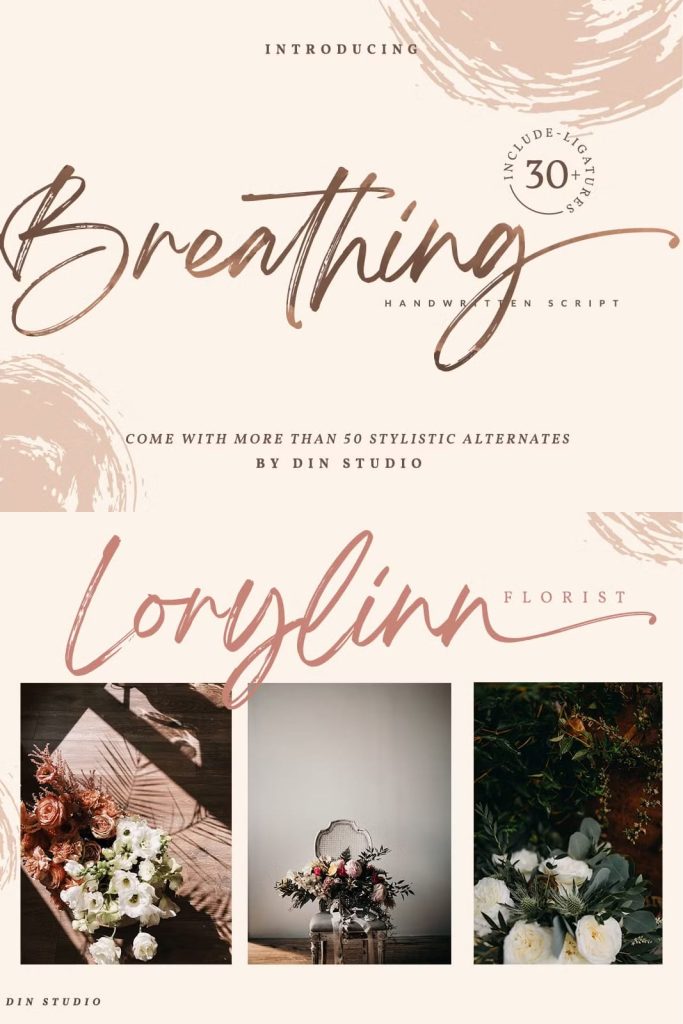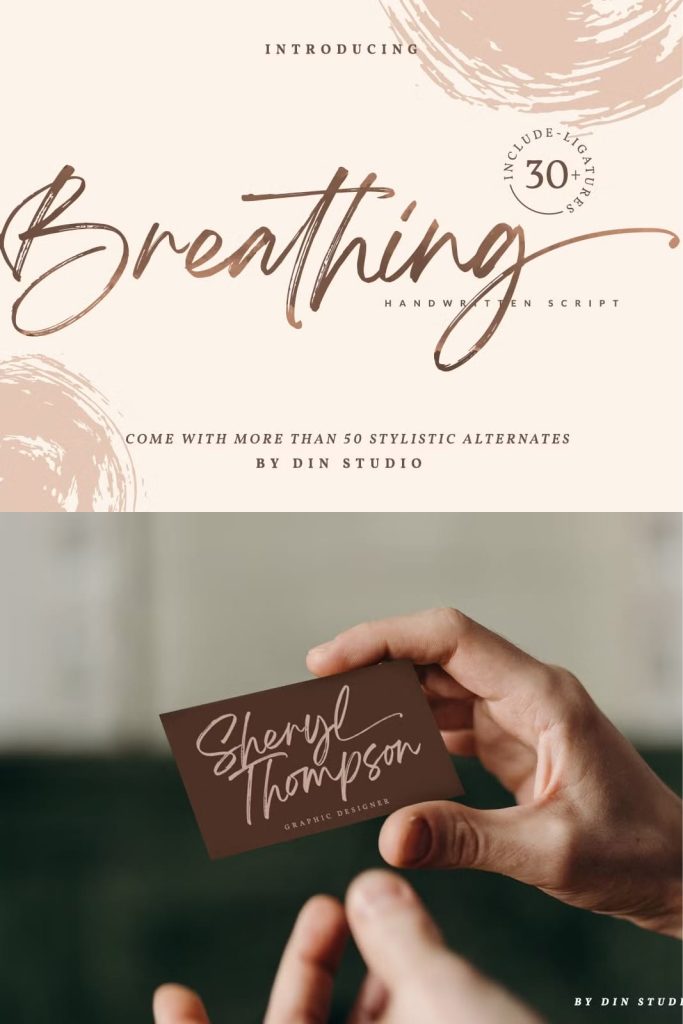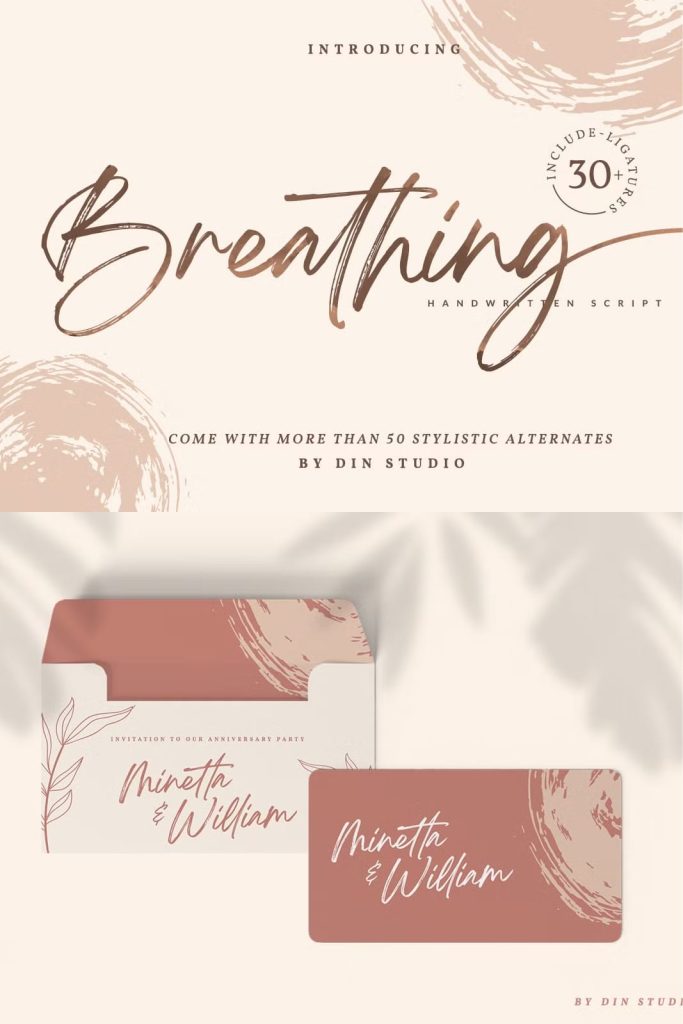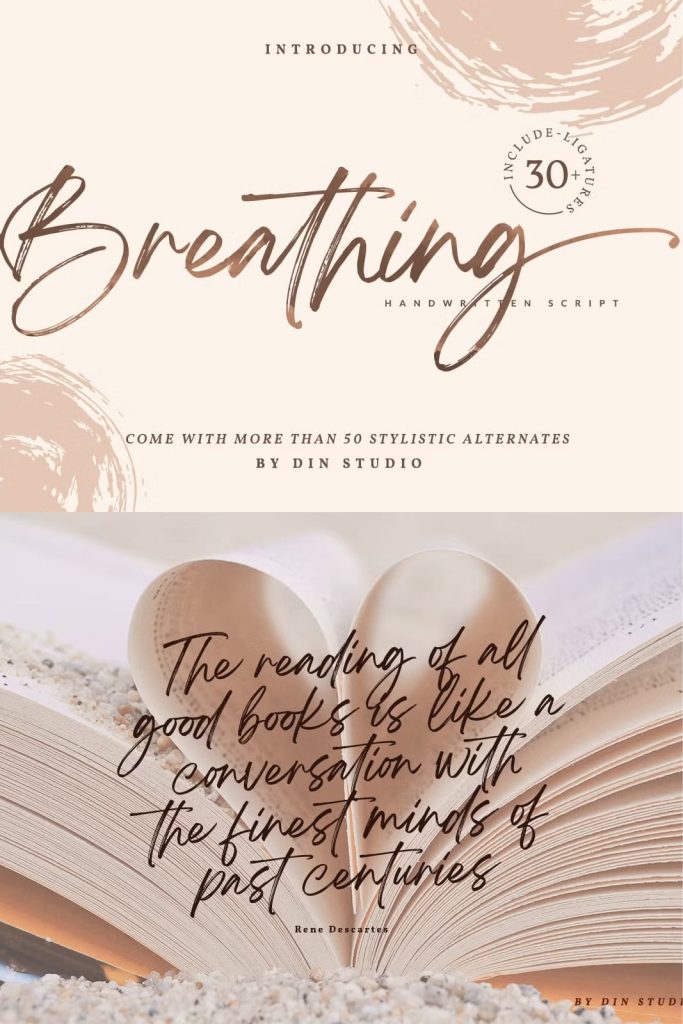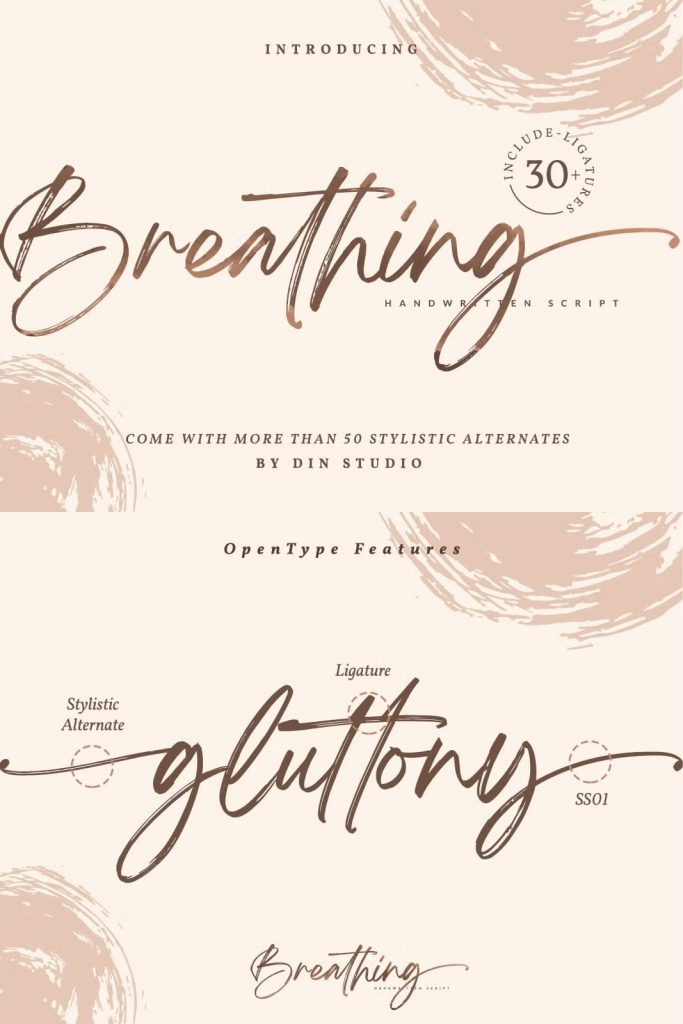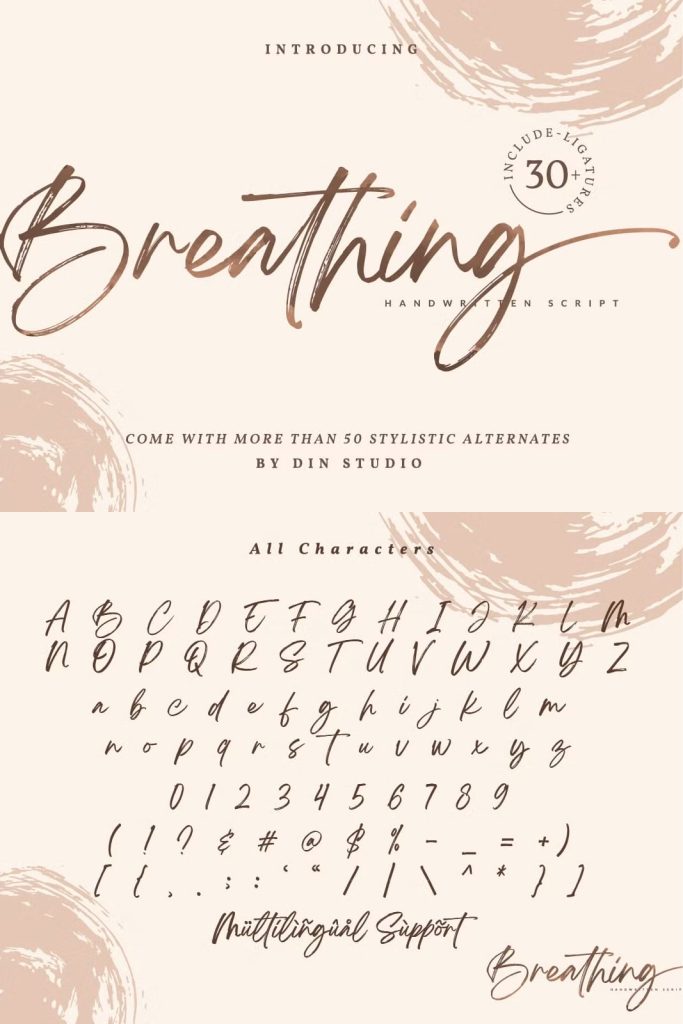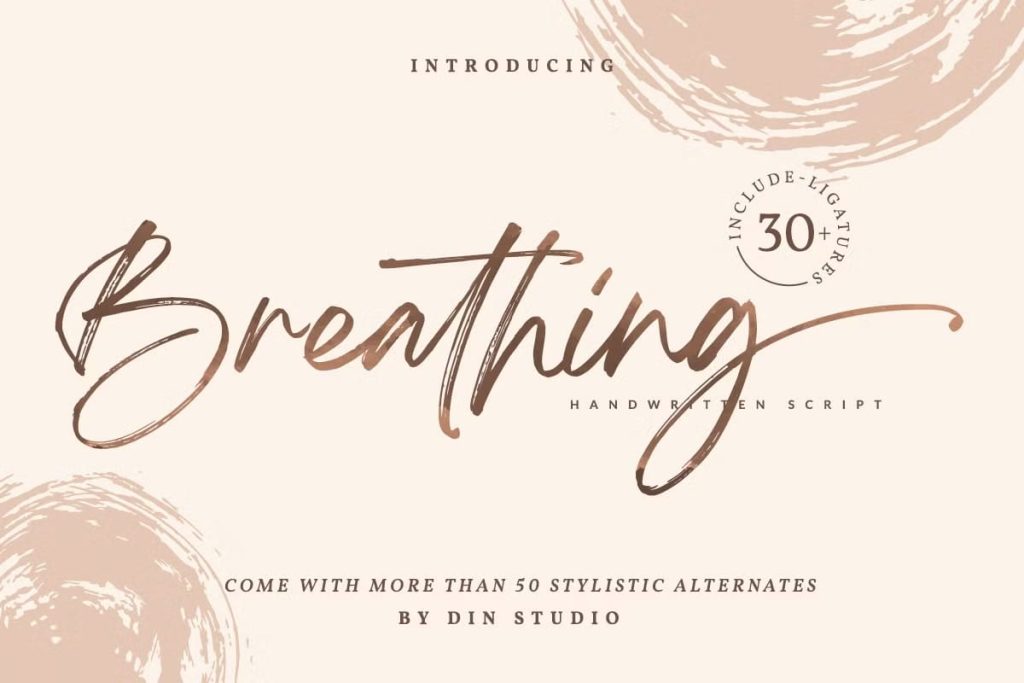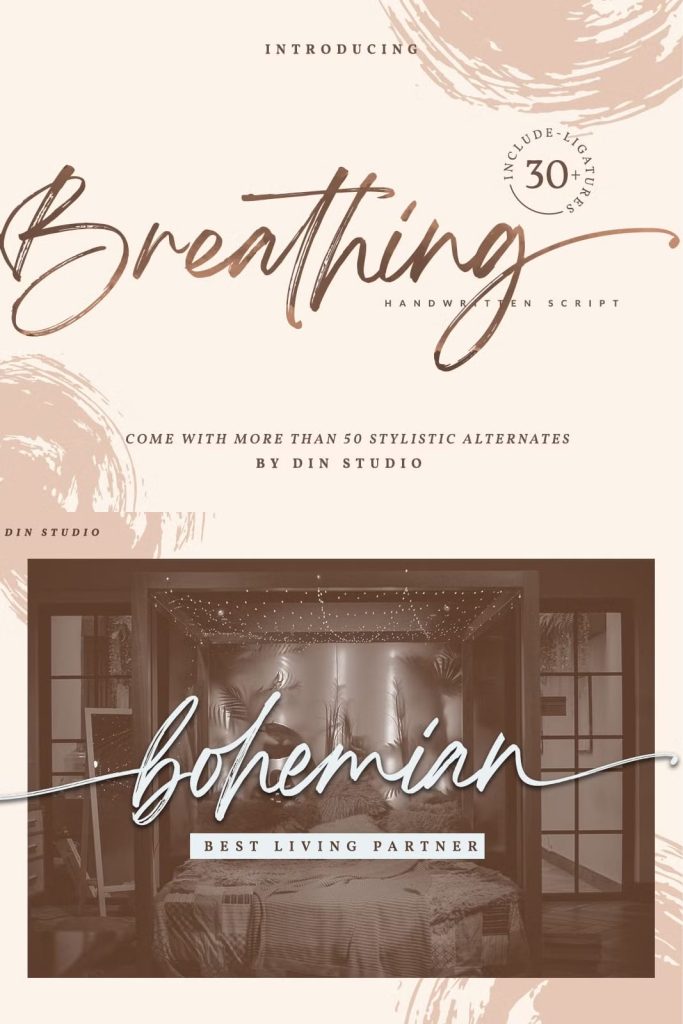
Breathing: A Beautiful Brush Signature Font for Professional Branding
Breathing is a beautiful brush signature font created to enhance professional design projects with authentic character and expressive elegance. Crafted by a talented designer, every letter in this typeface carries a unique touch that reflects the fluidity of natural handwriting. Breathing brings personality, sophistication, and artistic flair to any visual composition, making it an excellent choice for designers who want to elevate their branding work with a stylish and handcrafted feel.
Experience the Beauty of a Handcrafted Brush Signature Typeface
The charm of Breathing lies in its ability to capture the smooth rhythm and organic flow of real brush strokes. Each curve and line shows refined craftsmanship, ensuring that the font delivers a premium and natural handwritten look. Its letterforms offer graceful movement and consistent visual harmony, making Breathing ideal for creating designs that feel personal, expressive, and professional at the same time.
The font’s elegant signature style communicates authenticity, making it suitable for projects that require impactful lettering infused with artistic personality. Its brush-inspired strokes help shape a warm and memorable visual identity, which enhances the emotional connection between your design and the audience.
Perfect for a Wide Range of Professional Design Projects
Breathing supports a variety of creative and commercial applications. Its expressive handwritten style makes it an excellent option for logos, where a personal touch and strong character are essential. For posters and banners, the flowing strokes create eye-catching headlines that immediately draw attention. When applied to book covers, Breathing adds elegance and storytelling charm that perfectly supports literary themes.
Designers can also apply Breathing to social media graphics, branding kits, product packaging, magazine layouts, merchandise, invitations, and promotional materials. The font maintains clarity and visual appeal even when scaled, ensuring it performs well in both digital screens and printed formats. Its versatility allows seamless integration into minimalist designs, luxury branding, artistic layouts, and modern editorial compositions.
Why Choose Breathing for Your Creative Work
Breathing offers a rare combination of natural brush expression and refined signature elegance. Designers choose this font because it brings emotional depth and professional polish to any project. Each character is thoughtfully designed to ensure harmony and visual balance, making the font easy to pair with serif or sans-serif companions. This adaptability gives designers the freedom to experiment with different styles while maintaining a cohesive visual identity.
Because of its bold artistic presence, Breathing enhances the storytelling behind every design. It helps communicate values such as authenticity, creativity, trust, and individuality. Whether used for brand logos or personal projects, the font ensures your message feels distinctive and compelling.
Bring Artistic Expression to Your Branding Projects
Breathing stands out as a signature brush font that can transform ordinary text into expressive typography. Its handcrafted quality and smooth strokes give your work a dynamic aesthetic that feels both modern and timeless. When you integrate Breathing into your designs, you introduce a high level of craftsmanship and visual appeal that strengthens your overall creative direction.
With its elegant movement and artistic structure, Breathing empowers designers to build impactful visuals that inspire attention and admiration. It supports a wide range of branding and marketing needs, making it a valuable addition to any professional design toolkit.
Breathing is more than just a brush signature font. It is a creative asset that adds emotion, elegance, and handcrafted detail to every project. Its unique letterforms and versatile design make it suitable for logos, posters, merchandise, book covers, social media content, and many more applications. Elevate your branding projects with the expressive beauty and professional quality of the Breathing brush signature font.